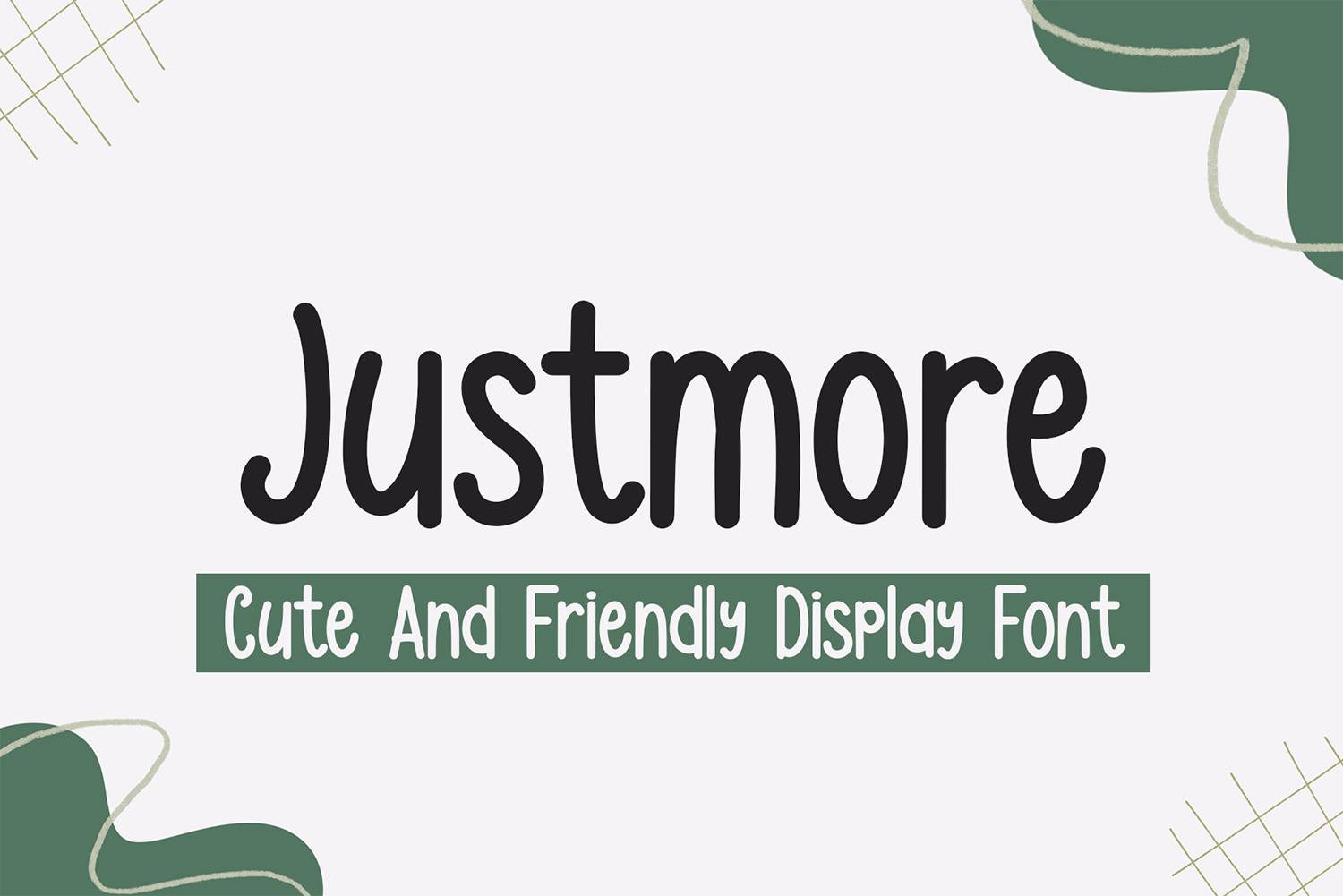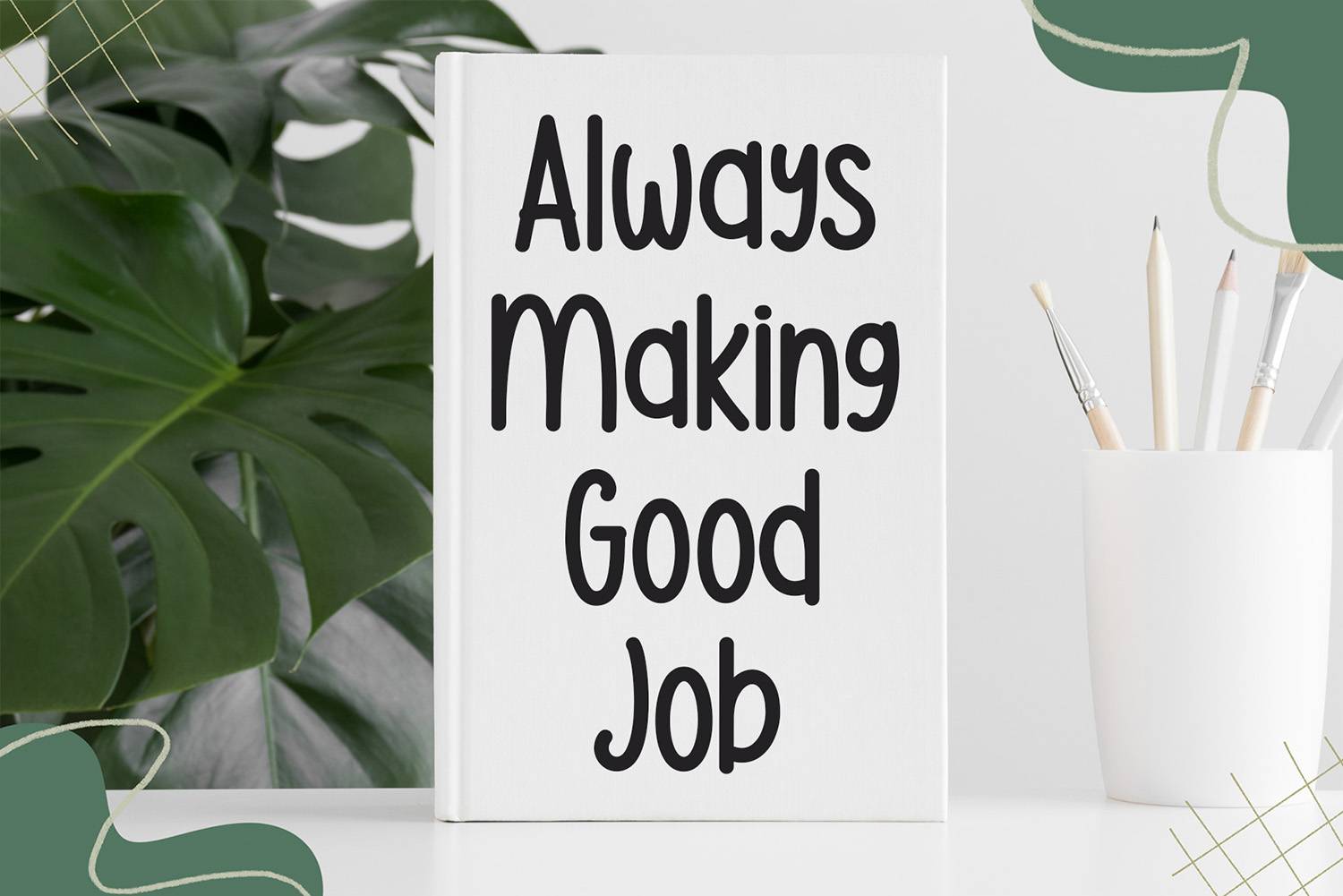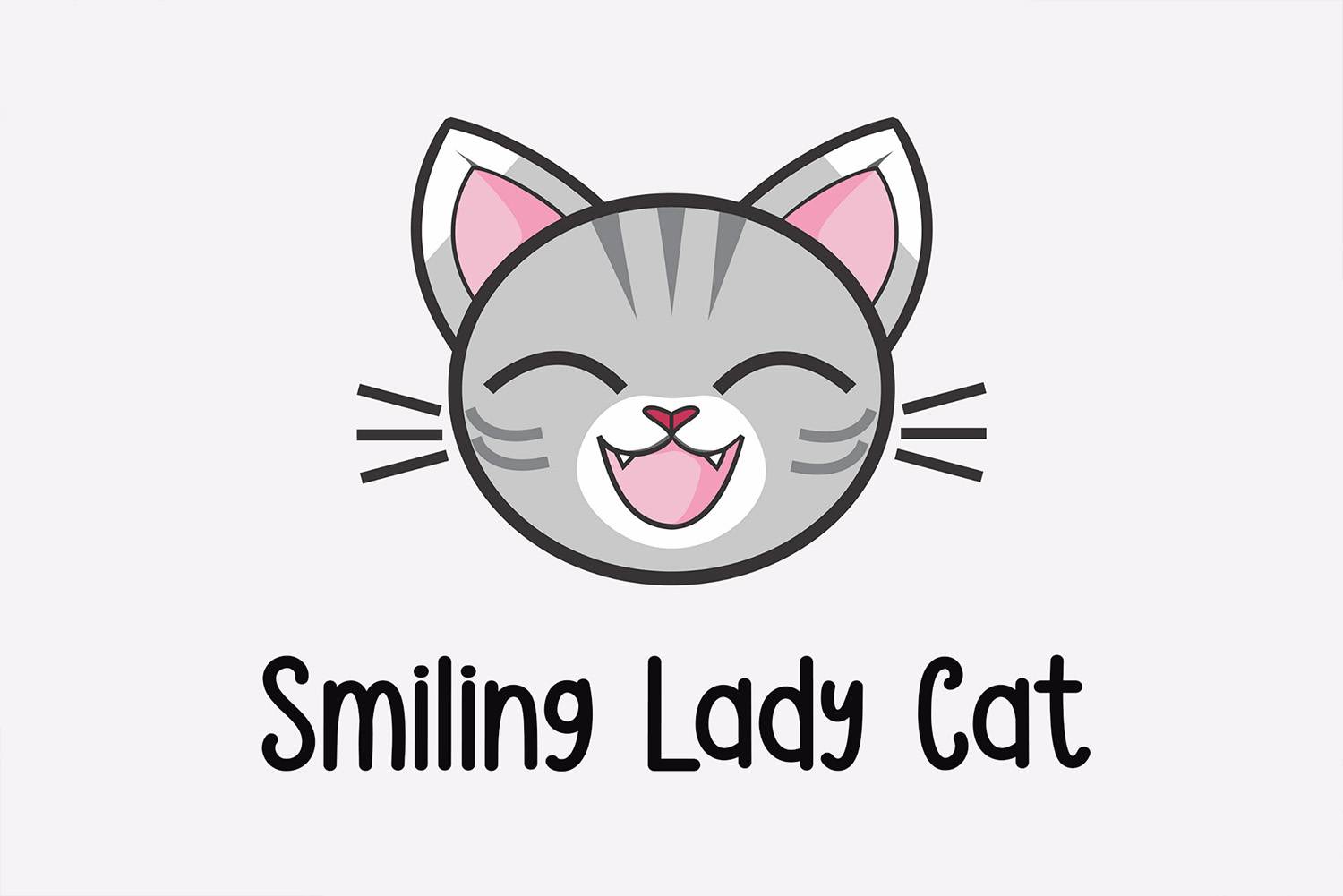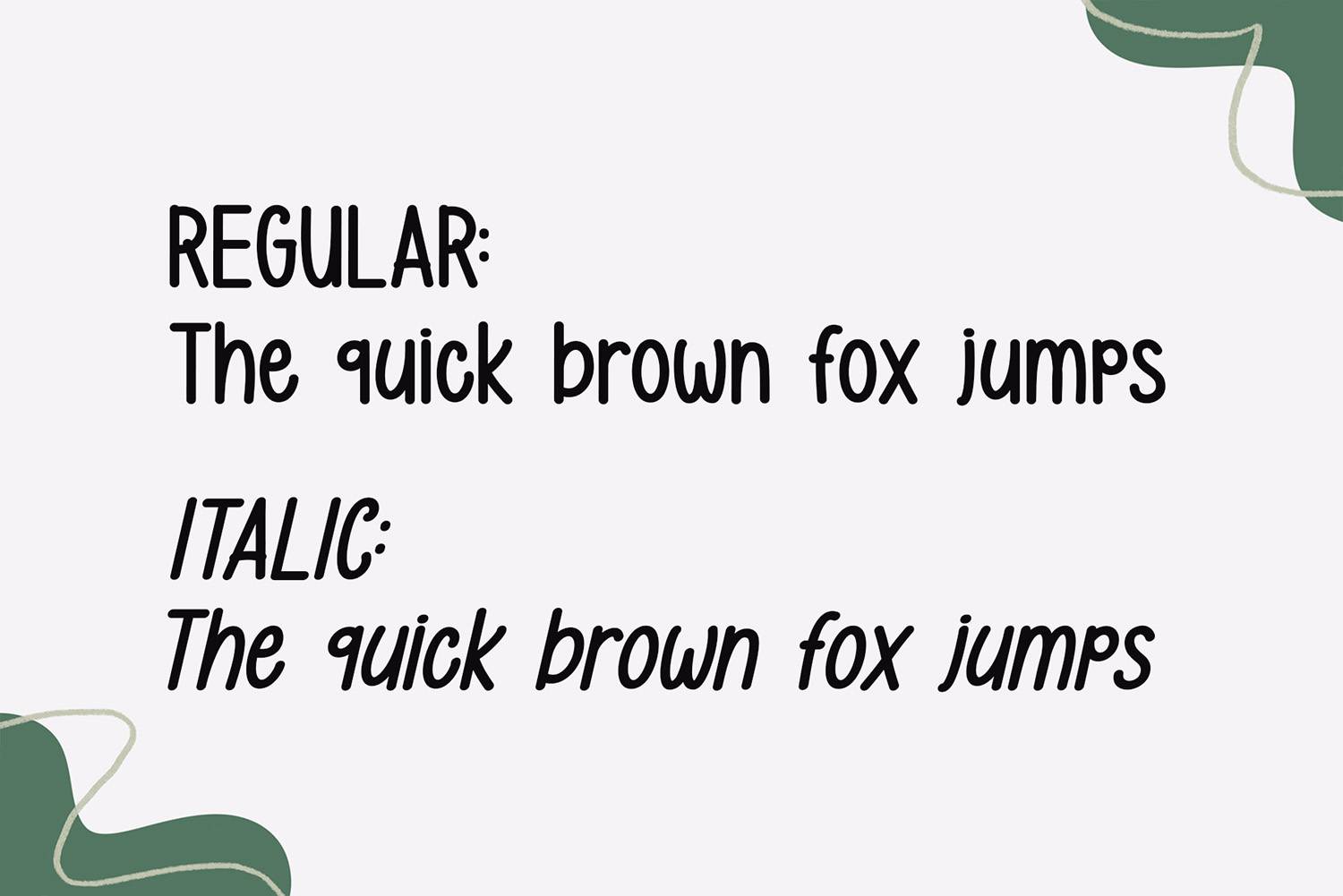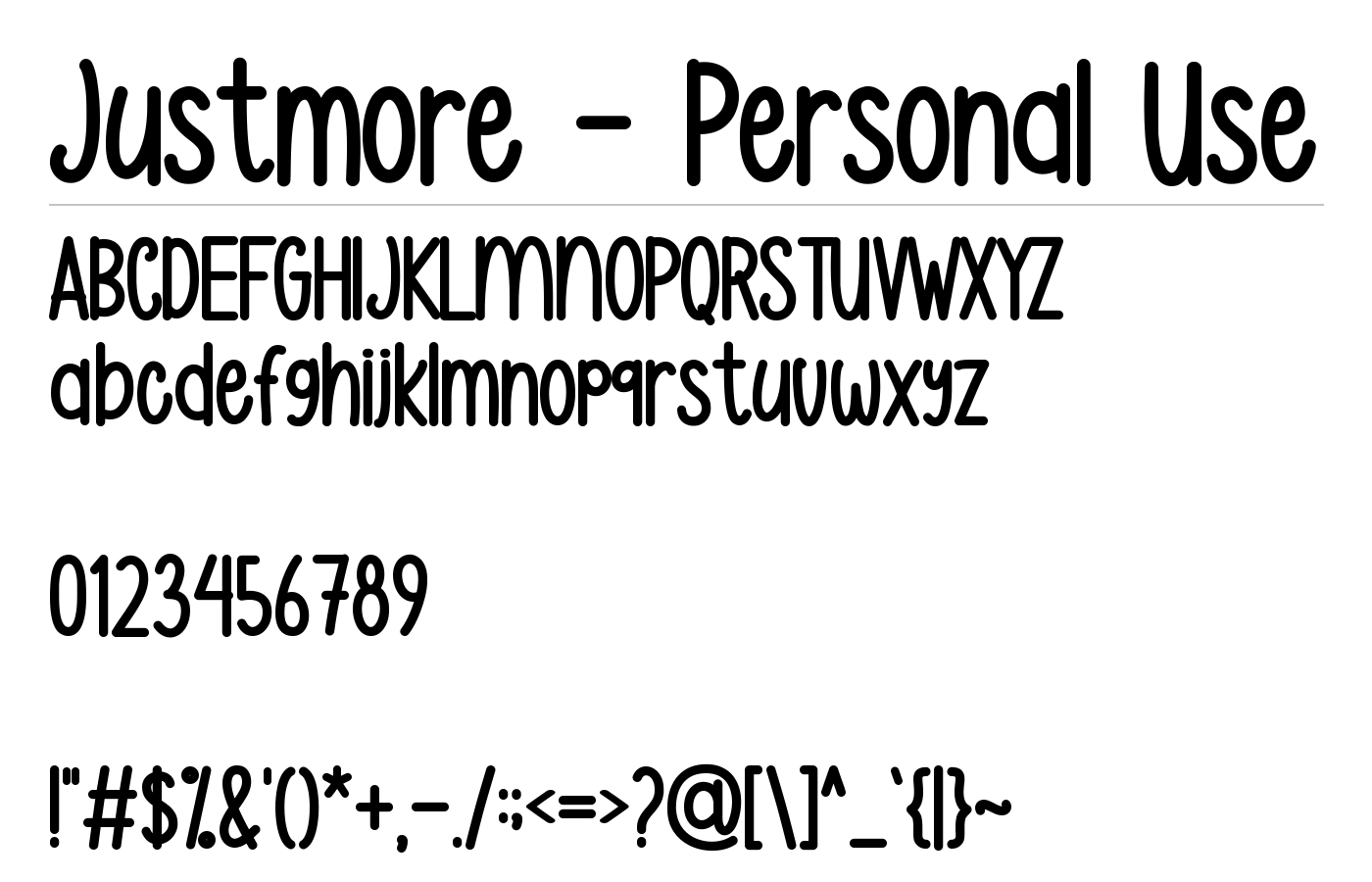
Justmore is a playful and casual sans serif font with a hand-drawn feel, characterized by its tall, narrow letterforms and rounded edges. Its light weight and friendly shapes make it perfect for informal, approachable branding and creative projects aimed at a youthful or whimsical audience. This font works well for headlines, logos, and packaging where a fun and personable vibe is desired.
Justmore Font
About Justmore Font
| Designer | Endri Sulistyawan |